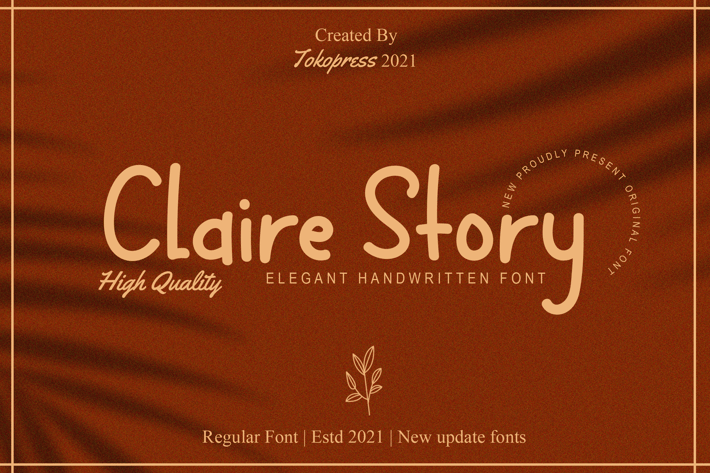
Claire Story - Girly Handwriting font
tokopress
Claire Story - Handwriting Font
Claire Story is a feminine handwritten script font with smooth curves, a relaxed baseline, and graceful, organic flow—designed for those who want to bring a touch of warmth and sophistication into their designs. With soft terminals and handwritten charm, this typeface strikes a perfect balance between casual and classy.
The font radiates elegance and softness, making it an excellent fit for lifestyle brands, home décor, boutique packaging, or social media content that seeks to build emotional connection. The flowing structure, delicate strokes, and balanced proportions make it feel personal and professionally polished at the same time.
If you're designing a bridal invitation, a luxury skincare label, or even a travel campaign with earthy warmth, Claire Story provides the handwritten authenticity and softness your message deserves. It enhances storytelling across visual formats—connecting audiences through organic design and emotional subtlety.
Perfect for Instagram quotes, blog headers, catalog spreads, and boutique storefront signage, this font wraps every word in a gentle, refined tone.
Key Features
Claire Story Brings Warm Personality to Every Project:
- Feminine handwritten style with organic curves and legible flow
- Balanced stroke widths for clear readability on screens and print
- Elegant vibe suitable for beauty, lifestyle, and home decor brands
- Ideal for packaging, invitation design, headers, and social content
- Wedding stationery and love letters
- Fashion editorials and luxury branding
- Product packaging and boutique logos
- Instagram stories, reels, and quotes